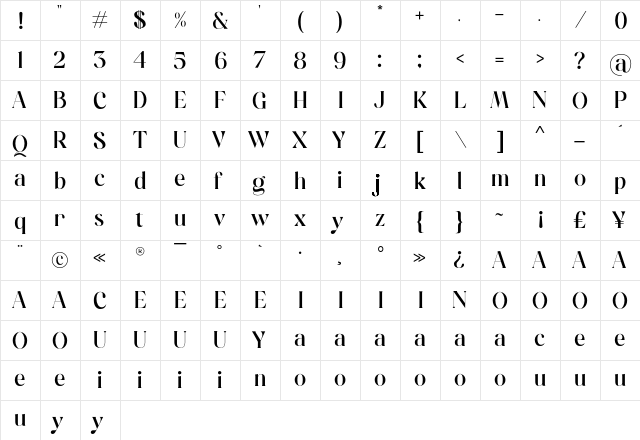
Hugolers Stylish Modern Regular
| Foundry | Haris Purnama |
| Designer | Haris Purnama Putra |
Design Context for Hugolers Stylish Modern Typeface
Hugolers Stylish Modern takes a measured approach to typography — its balanced proportions and neutral character make it a reliable workhorse for both digital and print work.